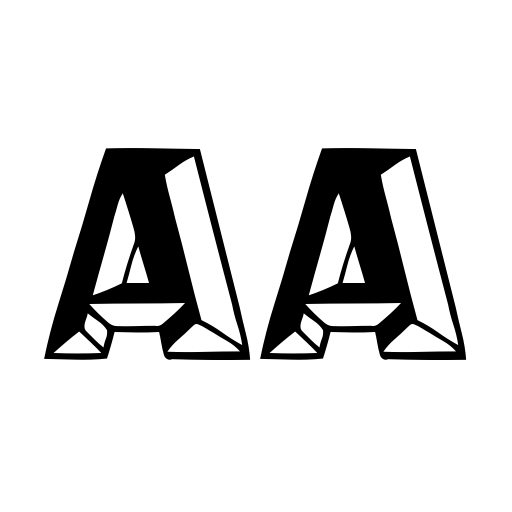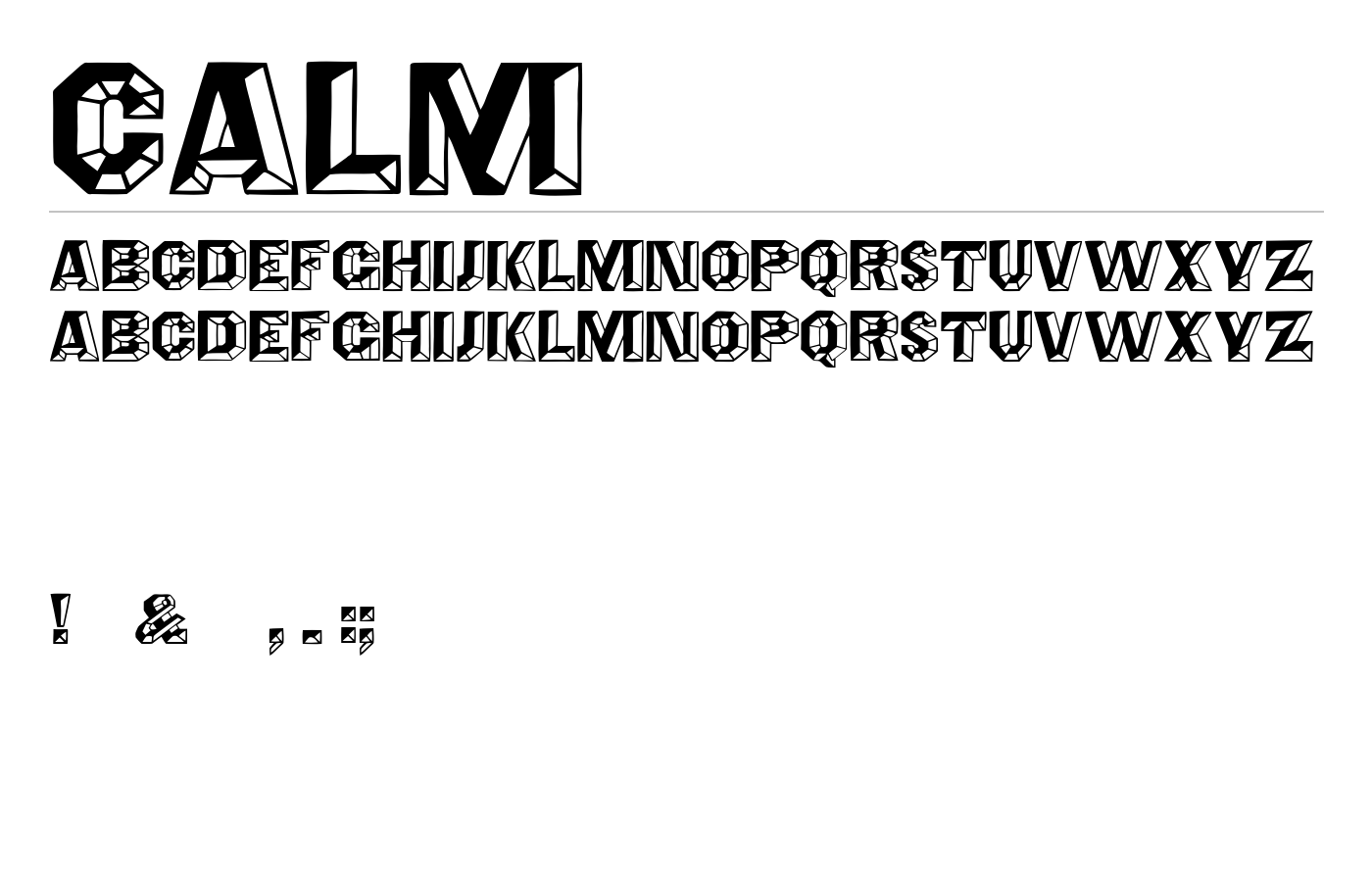
Calm Font is a bold, decorative sans serif typeface with a unique geometric, faceted design that creates a three-dimensional, crystal-like effect. Its uppercase letters feature sharp angles and strong contrasts between thick and thin strokes, making it perfect for attention-grabbing headlines, logos, and creative display uses where a modern, edgy vibe is desired. This font works best in large sizes to showcase its intricate details and striking personality.
Calm Font
About Calm Font
| Font family | Calm Font |